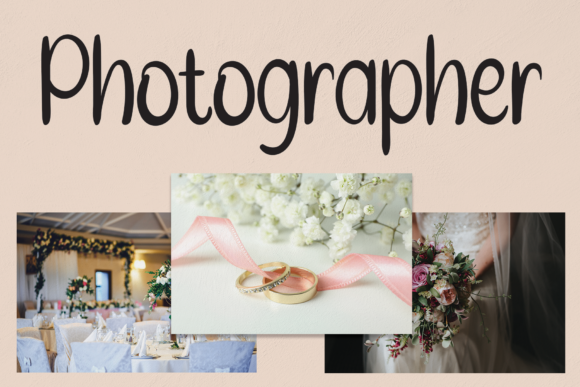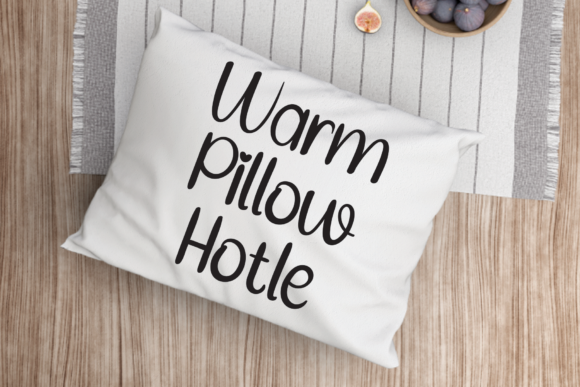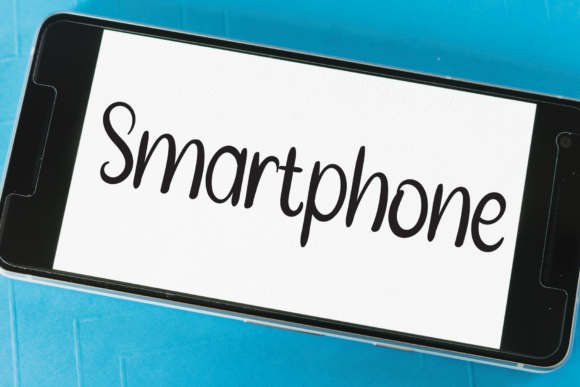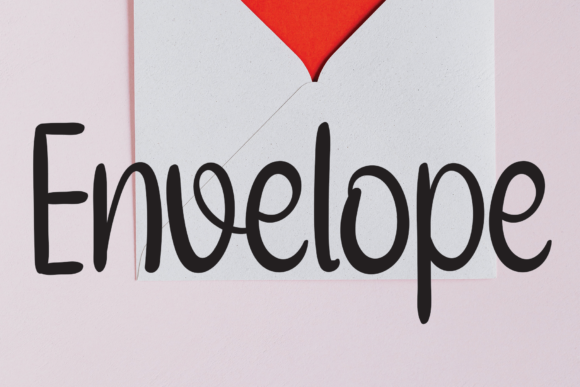
Magnum Font
About Magnum Font
Magnum is a chic script font carefully created with a touch of elegance. Whether you’re looking for fonts for Instagram or calligraphy scripts for DIY projects, this font will turn any creative idea into a true piece of art!